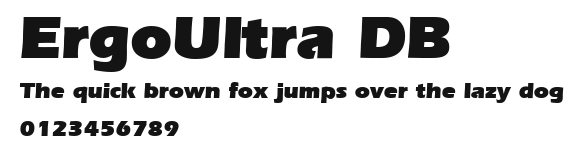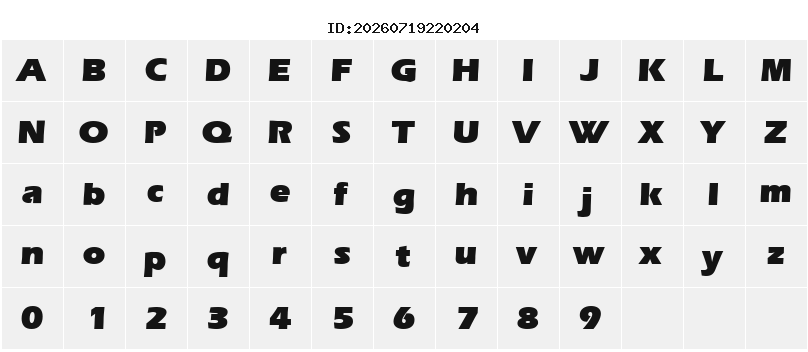
• Font Name: ErgoUltra DB
ErgoUltra DB.ttf is a modern, elegant sans-serif font designed for ultimate readability and visual harmony. Perfect for branding, headlines, web design, and print materials.